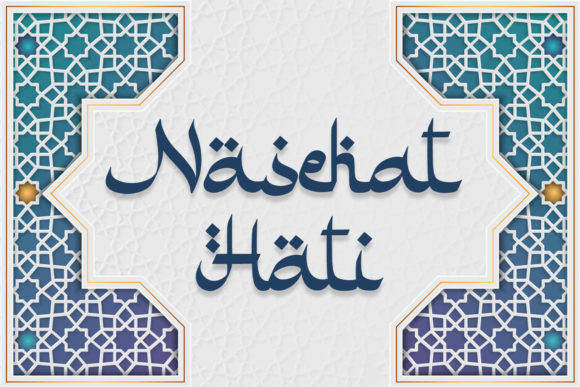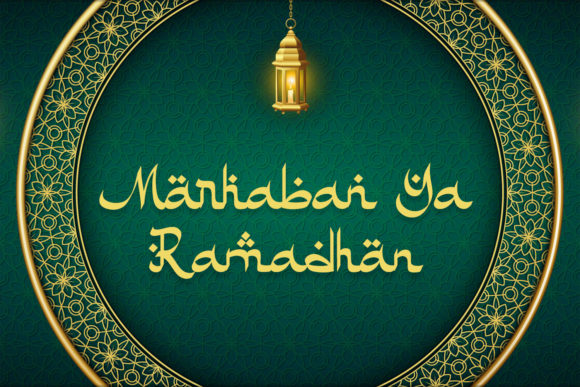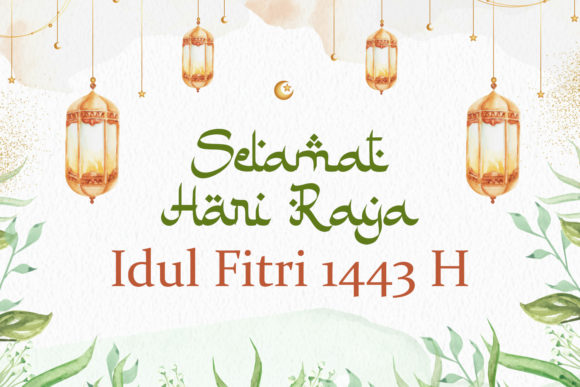
About Miracle Ramadhan Font
Miracle Ramadhan is a stunning Arabic style font with authentic and casual feels. Its natural and unique style makes it incredibly fitting to a large pool of designs. The only limit is your imagination!